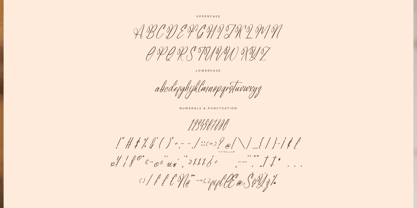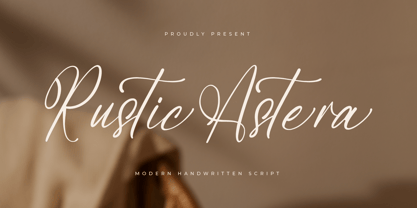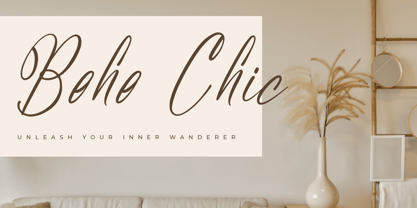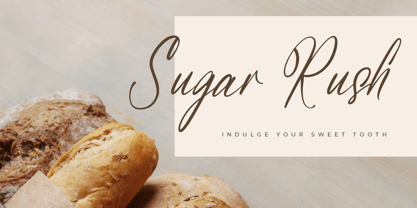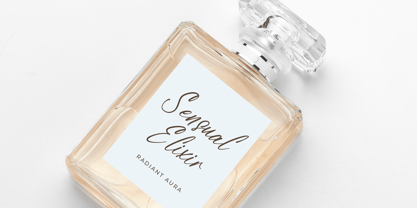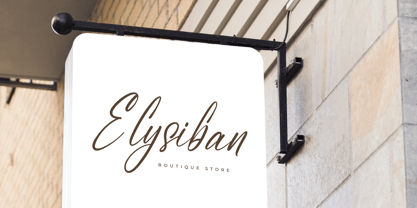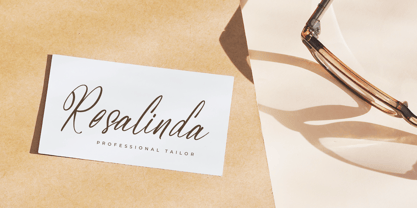
Rustic Astera
par Letterena Studios
La famille de polices Rustic Astera a été conçue par Heru Utama Putra et publiée par Letterena Studios. Rustic Astera contient 2 styles et options de package familial. En savoir plus sur cette famille
Rustic Astera – Modern Handwritten Script , from Letterena, is a Luxury Script font, suitable for any projects such as: logos, branding projects, homeware designs, product packaging, mugs, quotes, posters, shopping bags, t-shirts, book covers, name card, invitation cards, greeting cards, label, photography, watermark, special events, and all your other luxury and beautiful projects that need a Luxury Script taste.